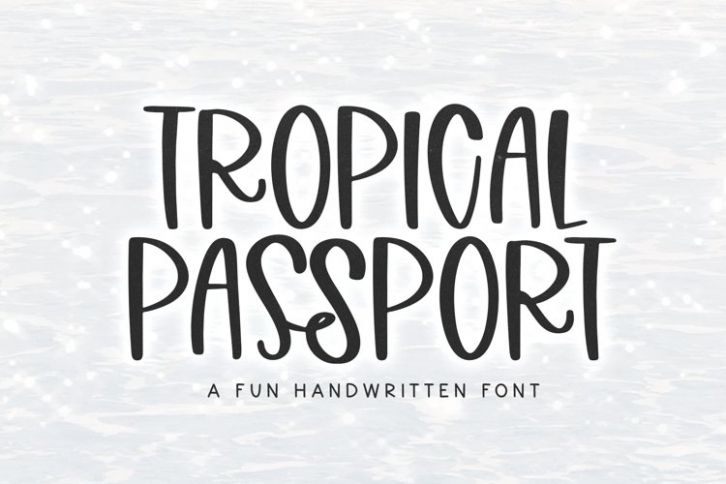
Tropical Passport is a beautiful font that was designed by plusstore. It's a great choice for designers and creatives who need such a font. It was released on June 29, 2022 and the file size is 15.58 MB. Tropical Passport may give a more youthful, expressive and casual look to your project. It is a very beautiful, refined, elegant, and high-quality font.